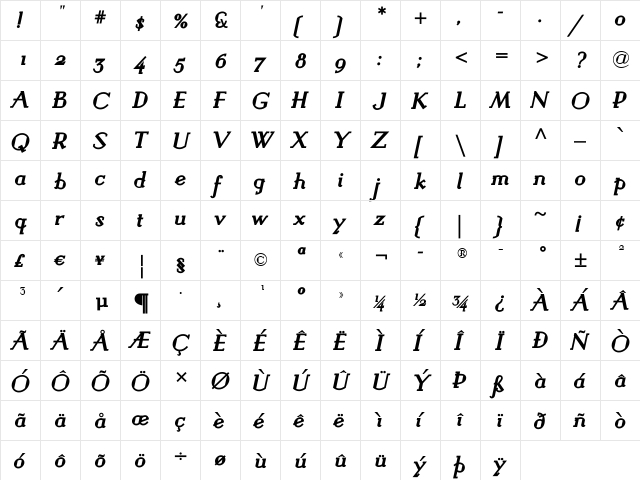
SavoyRomanNF Bold Italic Font Preview
| Foundry | Nick's Fonts |
| Designer | Nick Curtis |
Design Context for SavoyRomanNF Typeface
SavoyRomanNF offers clean, dependable letterforms without strong stylistic allegiance, making it a practical choice for designers who need flexibility. The dynamic lean of this cut emphasises speed and emphasis in any layout. The heavy weight commands attention and anchors typographic hierarchies.
Pro Tip: Try SavoyRomanNF for annotation and caption copy alongside an upright companion — the contrast in angle creates a dynamic but ordered typographic system.